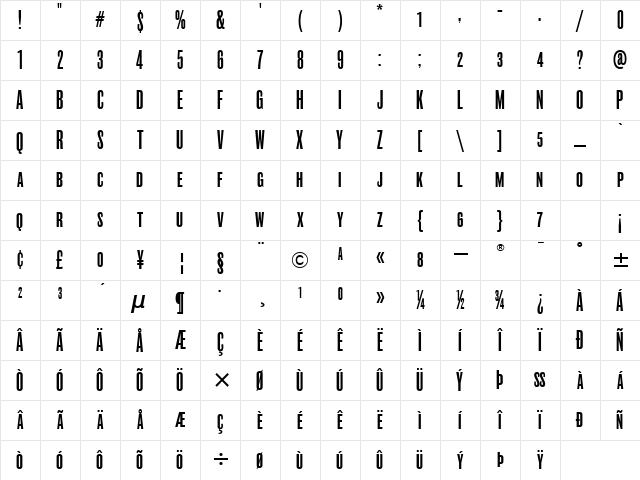
RoswellSCFourITC TT Regular
RoswellSCFourITC TT Regular Family
RoswellSCFourITC TT Regular
RoswellSCFourITC TT Regular Font Preview
RoswellSCFourITC TT Regular Preview
RoswellSCFourITC TT Regular Character Map
Complete RoswellSCFourITC TT Regular glyph index. Displaying only characters natively supported by RoswellSCFourITC TT Regular font.
RoswellSCFourITC TT Regular Character Map
Design Context for RoswellSCFourITC TT
RoswellSCFourITC TT is a composed and adaptable typeface that performs quietly and consistently across a wide range of design contexts.
Pro Tip: Use RoswellSCFourITC TT in both headline and body roles to test its range before committing to a single application.